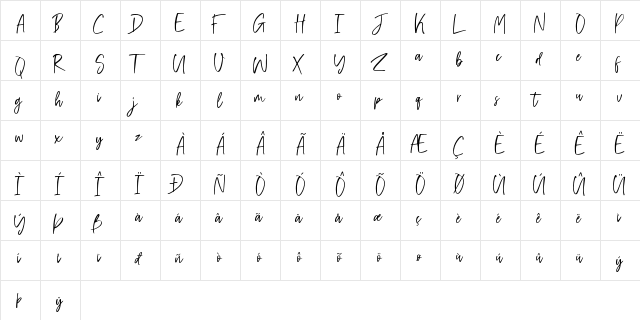
Friday Vibes Regular
Design Context for Friday Vibes Typeface
Friday Vibes is a composed and adaptable typeface that performs quietly and consistently across a wide range of design contexts.